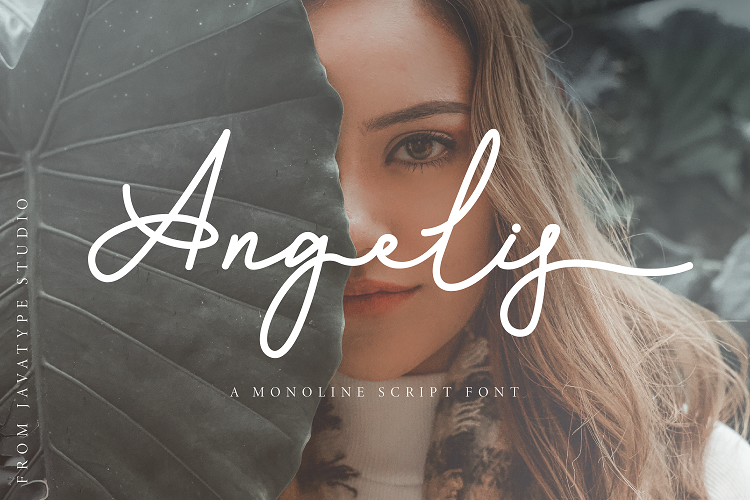
Free download Angelis Font
Preview and download Angelis Font. Created by Javatype Studio in Script Handwritten styles with Free for personal use license.
Font name: | Angelis |
Author: | Javatype Studio |
Angelis Script is a monoline script font which natural movement and elegant for signature style. NOTE: This demo font is for PERSONAL USE ONLY! But any donation are very appreciated Paypal account for donation: http://paypal.me/tyoyulianto link to purchase full version and commercial license https://www.creativefabrica.com/product/angelis/ref/433909/ please visit Creative Fabrica https://www.creativefabrica.com/ref/433909/ Thank You Javatype Studio |